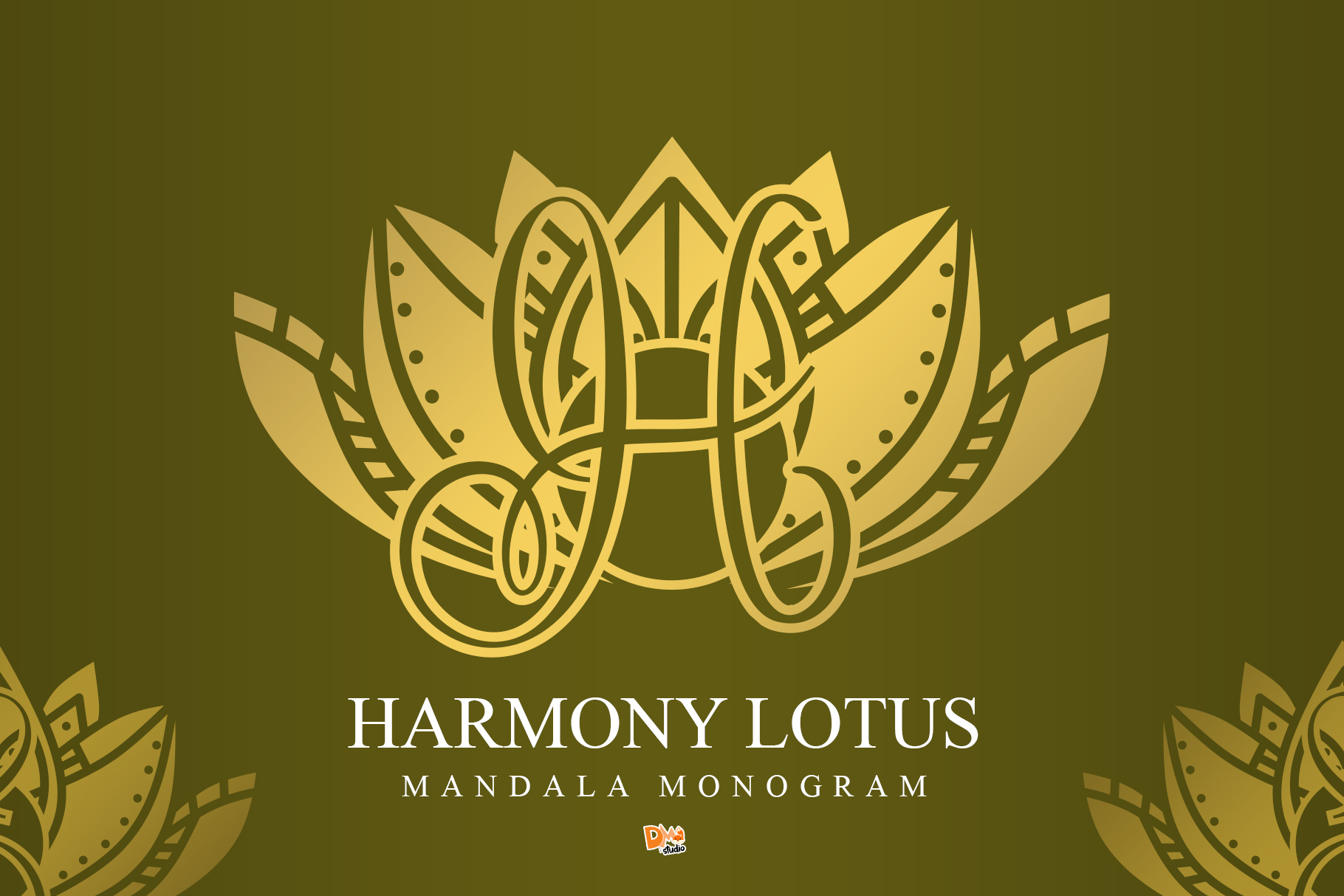
Harmony Lotus Mandala Monogram
Harmony Lotus Mandala Monogram – Serene & Ornamental Mandala Monogram Font
Harmony Lotus Mandala Monogram is a graceful typeface combining the symbolic lotus flower with harmonious mandala patterns. This monogram font radiates peace and balance, making it an ideal choice for wellness brands, personalized stationery, spiritual merchandise, and elegant invitations. Each character is meticulously designed to bring a touch of calm sophistication to any creative project.
• Harmonious Lotus & Mandala Fusion: Every letter features intricately drawn lotus-inspired mandala patterns.
• Elegant & Tranquil Aesthetic: A serene balance of soft curves and ornate details.